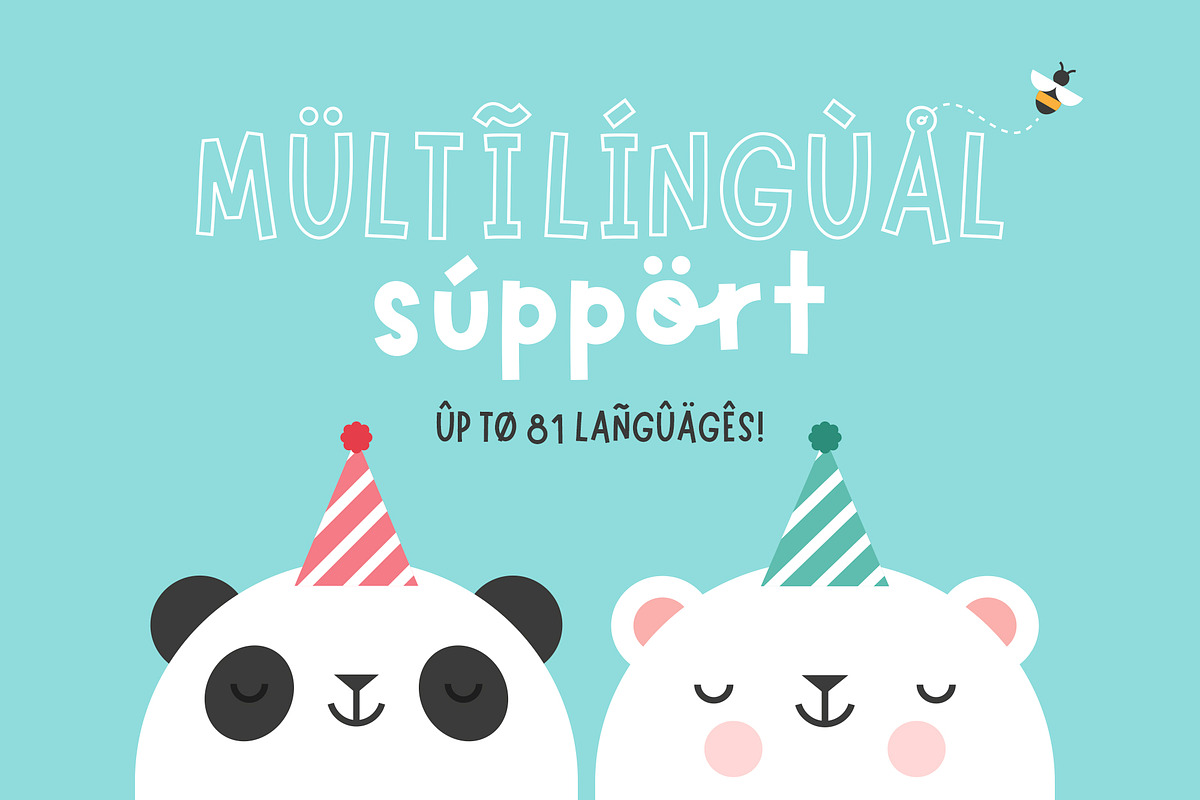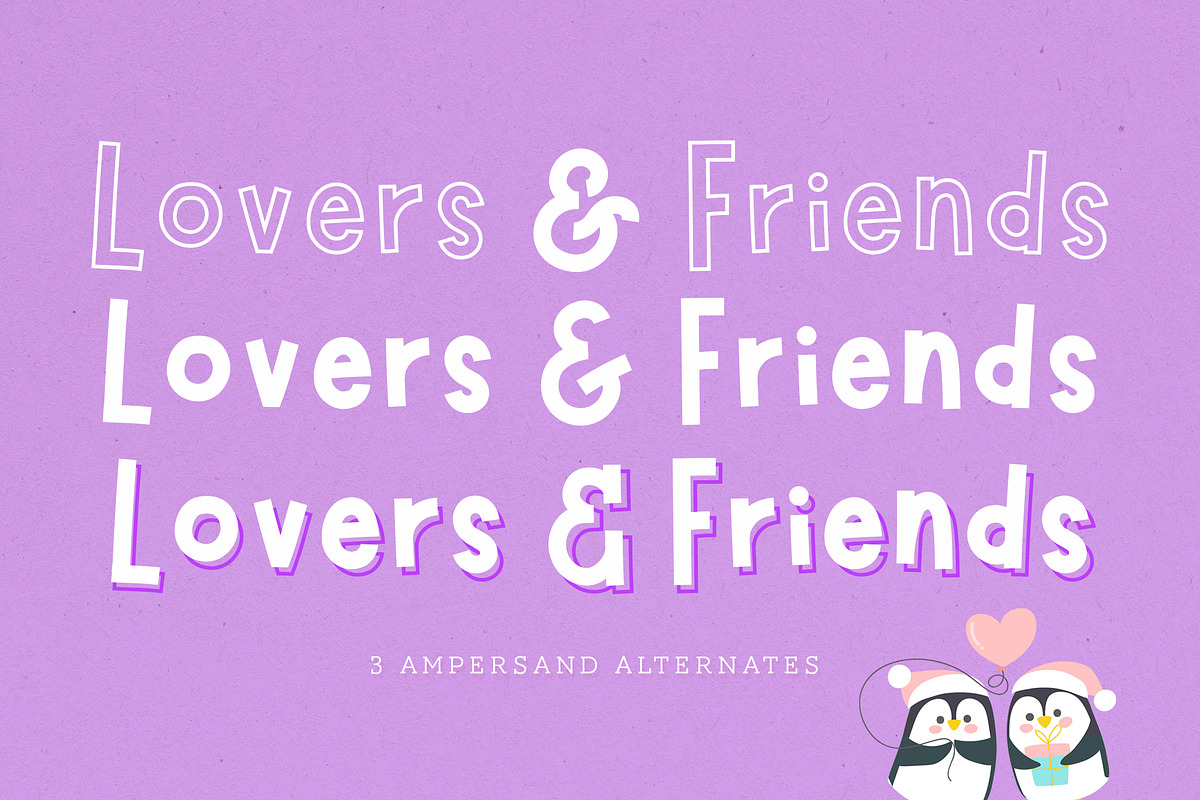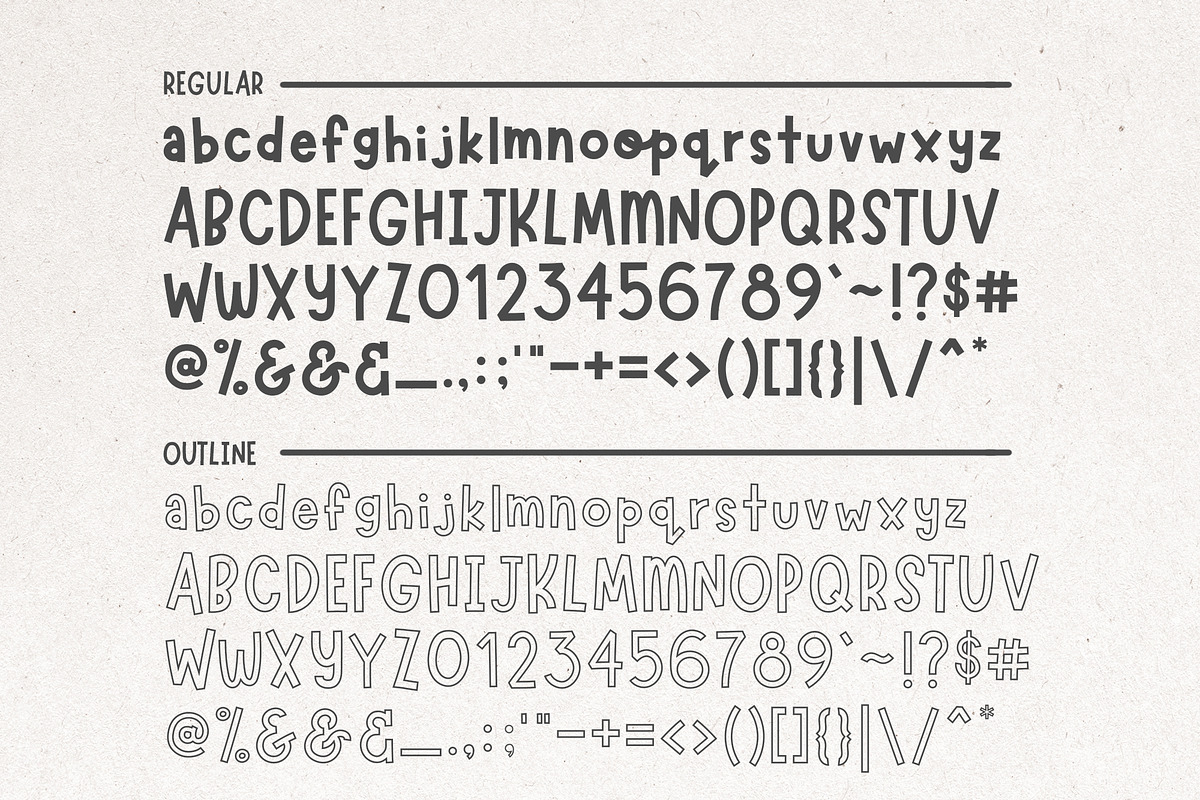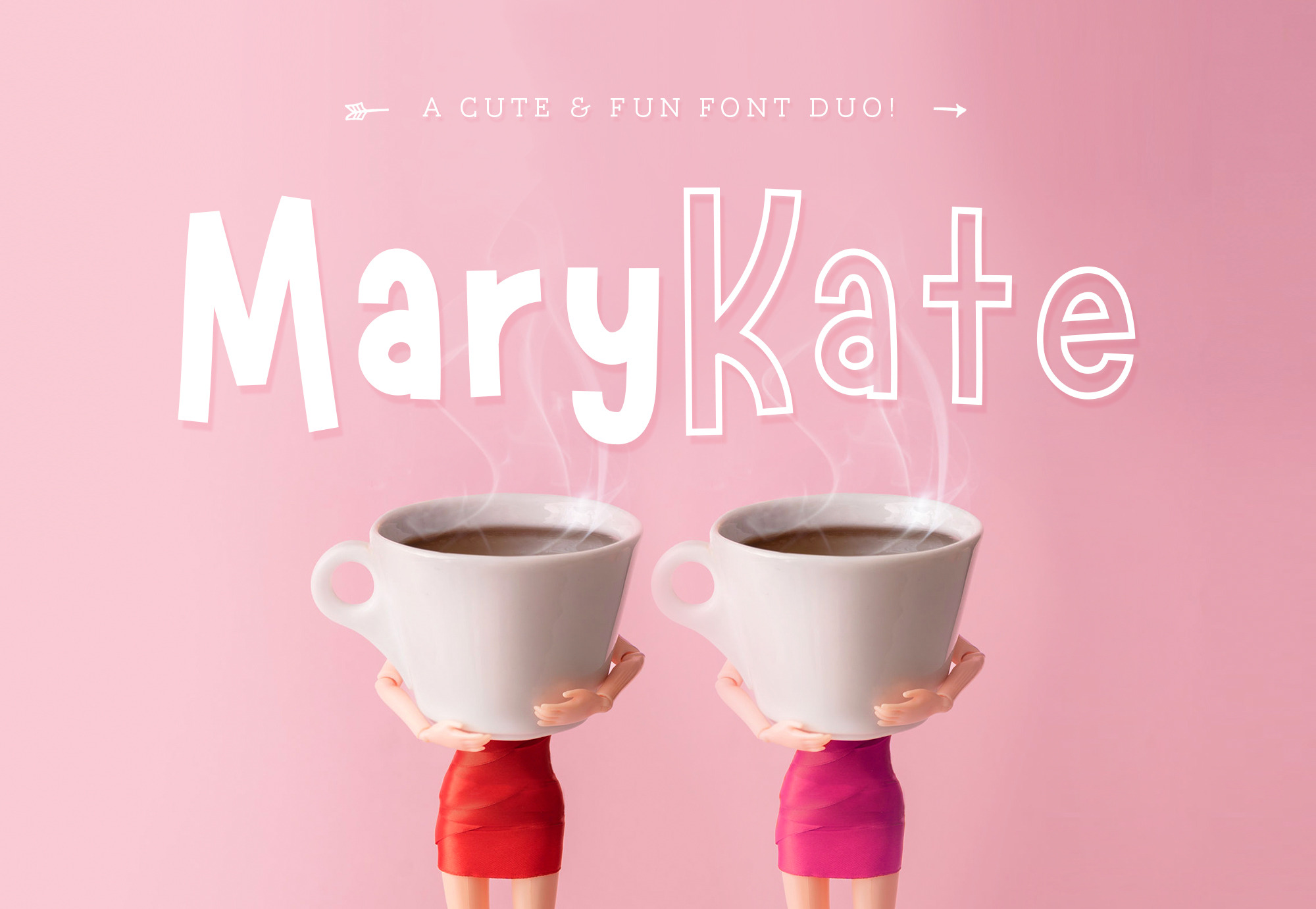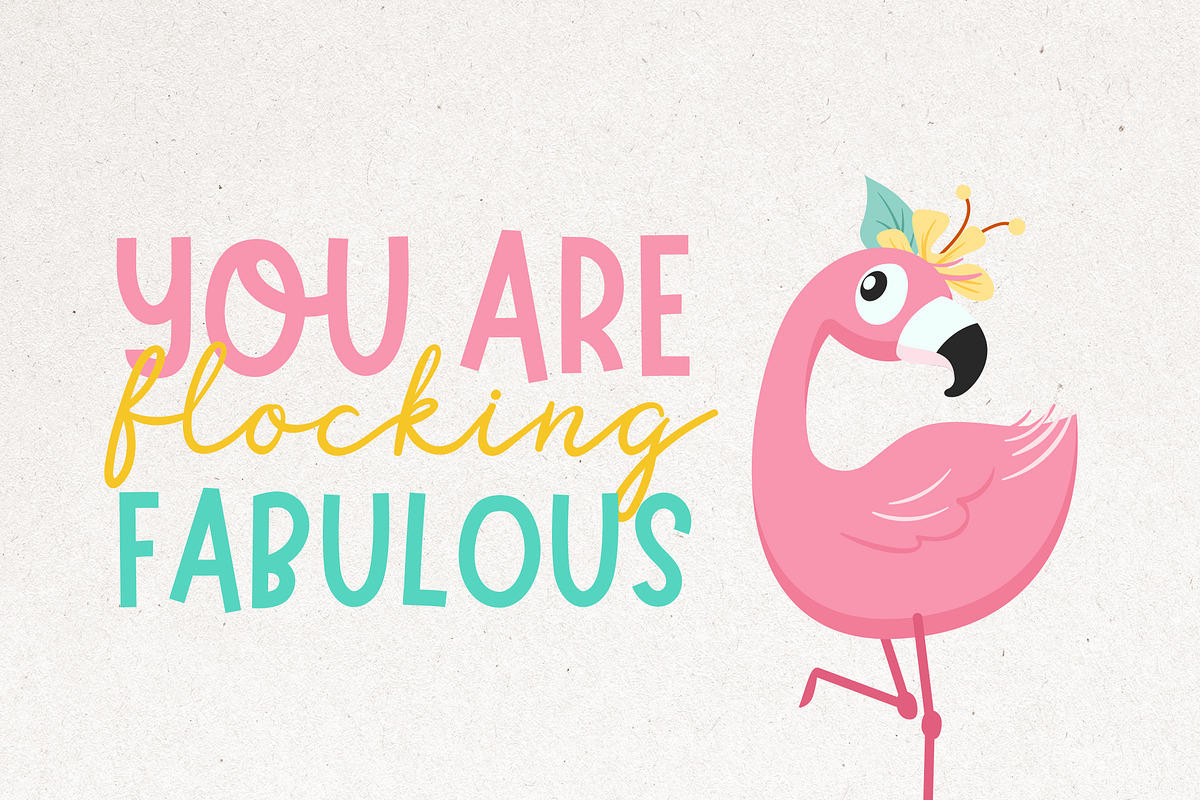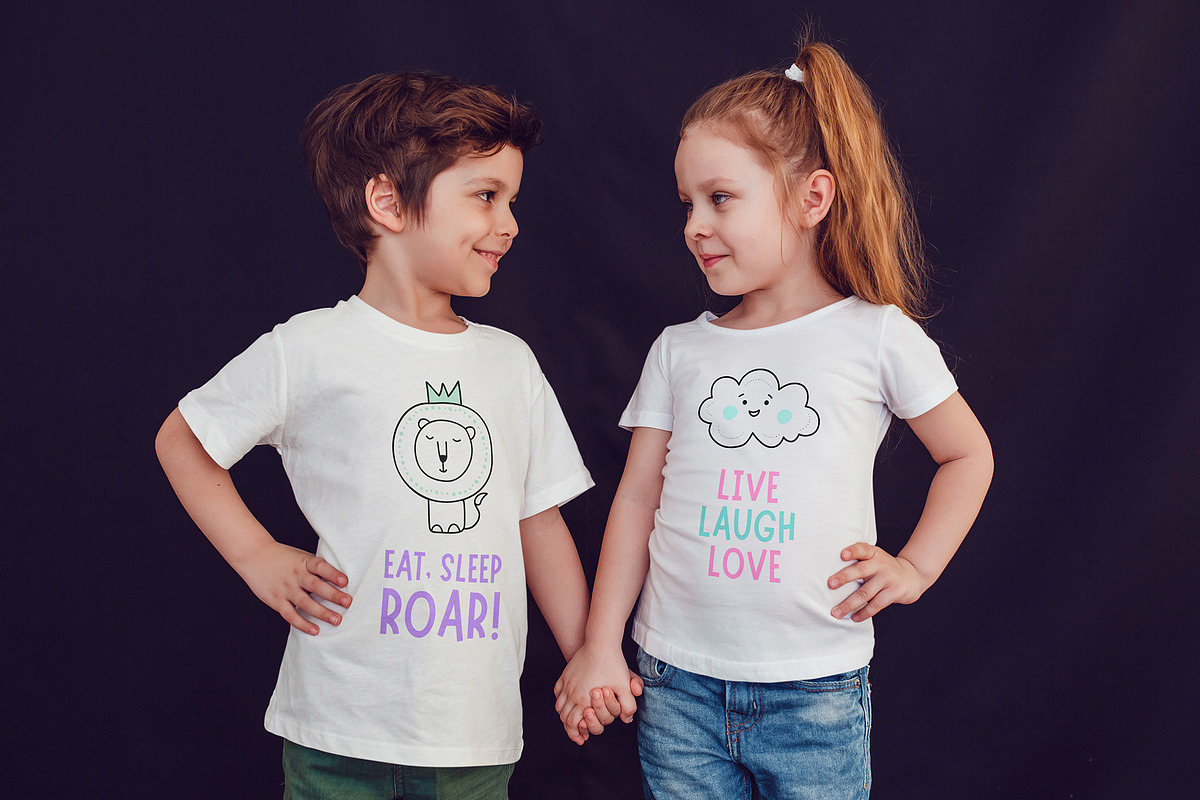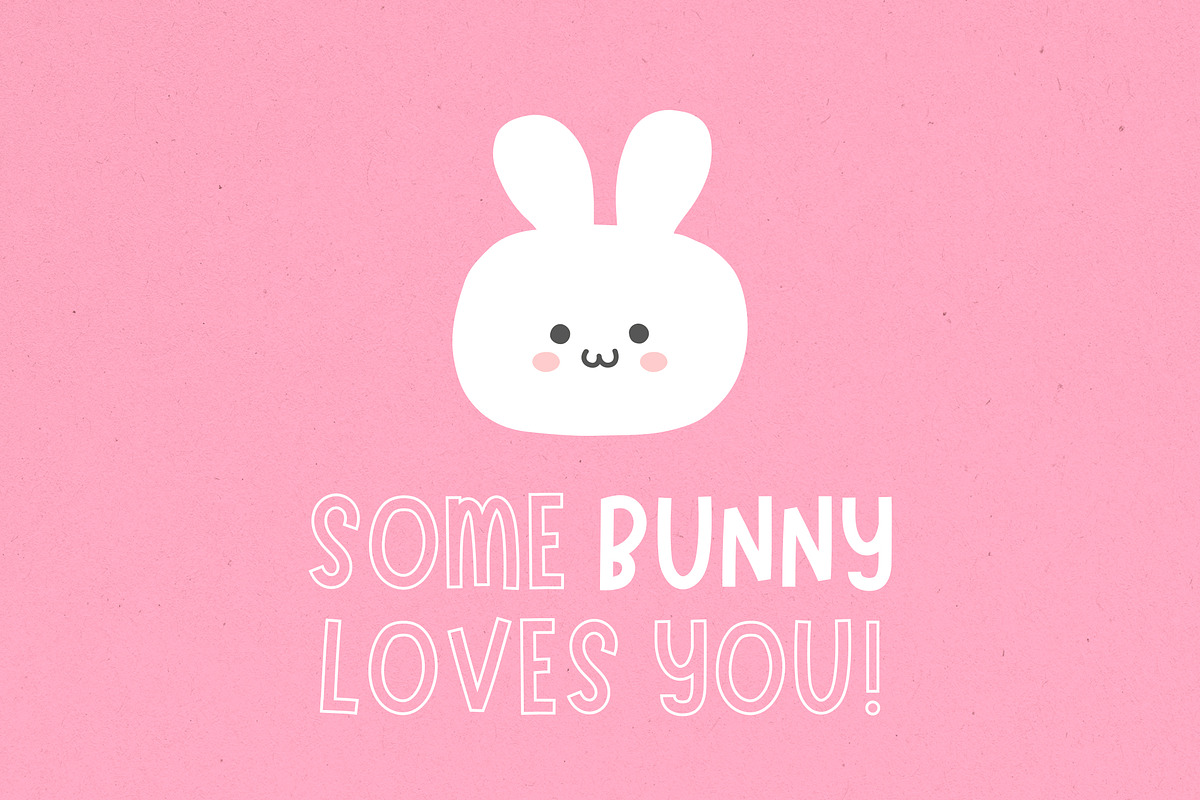
Marykate Font Duo
Marykate is a playful yet versatile font duo, comes with a set of solid and outline font files, perfect for any design & craft projects! Ideal for quotes, home decor, wedding invites, blog header, branding, t-shirts, posters & etc!
★ UPDATE ★ Multilingual support!
Marykate Font Duo now supports Danish, French, German, Italian, Norwegian, Portuguese, Spanish, Swedish, Swahili & more!